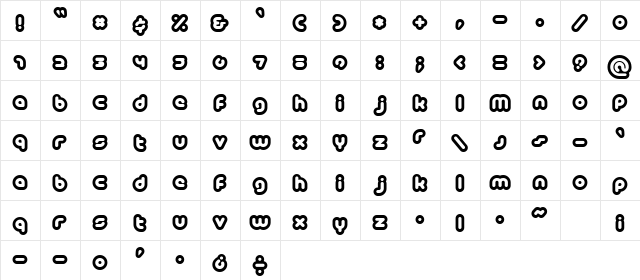
PicoWhiteAl Regular
Design Context for PicoWhiteAl Typeface
PicoWhiteAl is a composed and adaptable typeface that performs quietly and consistently across a wide range of design contexts.
Pro Tip: Use PicoWhiteAl in both headline and body roles to test its range before committing to a single application.